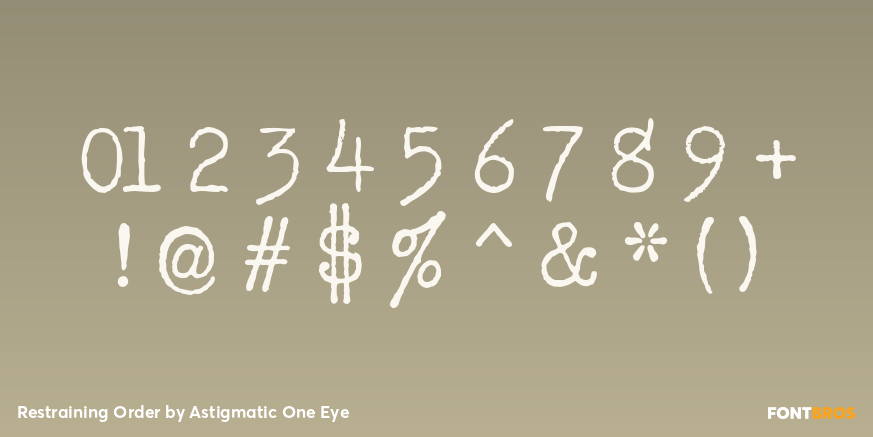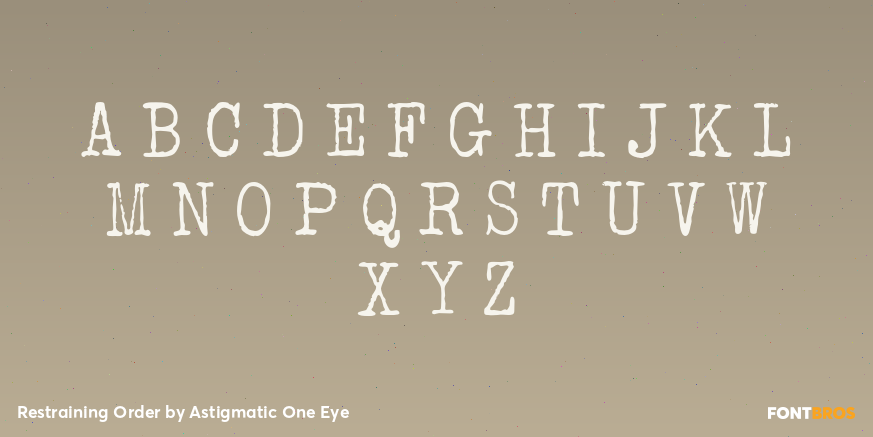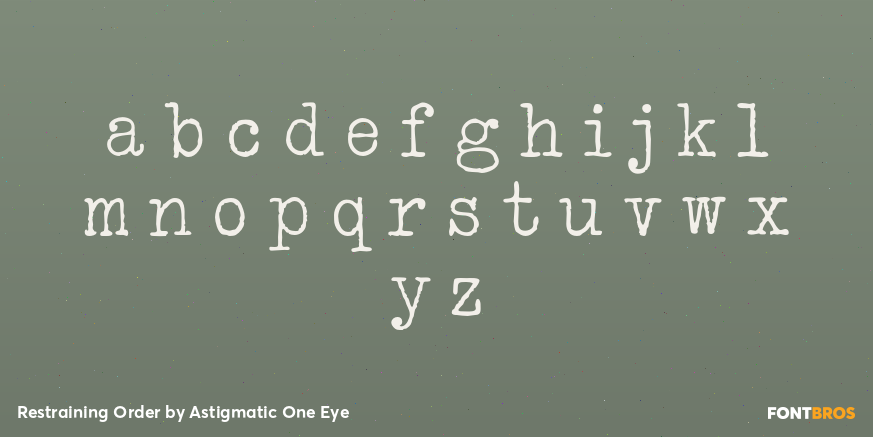
Restraining Order
Font Family by Astigmatic One Eye
A typeface made from vintage typewriter samples and meticulously compiled into a complete character set.